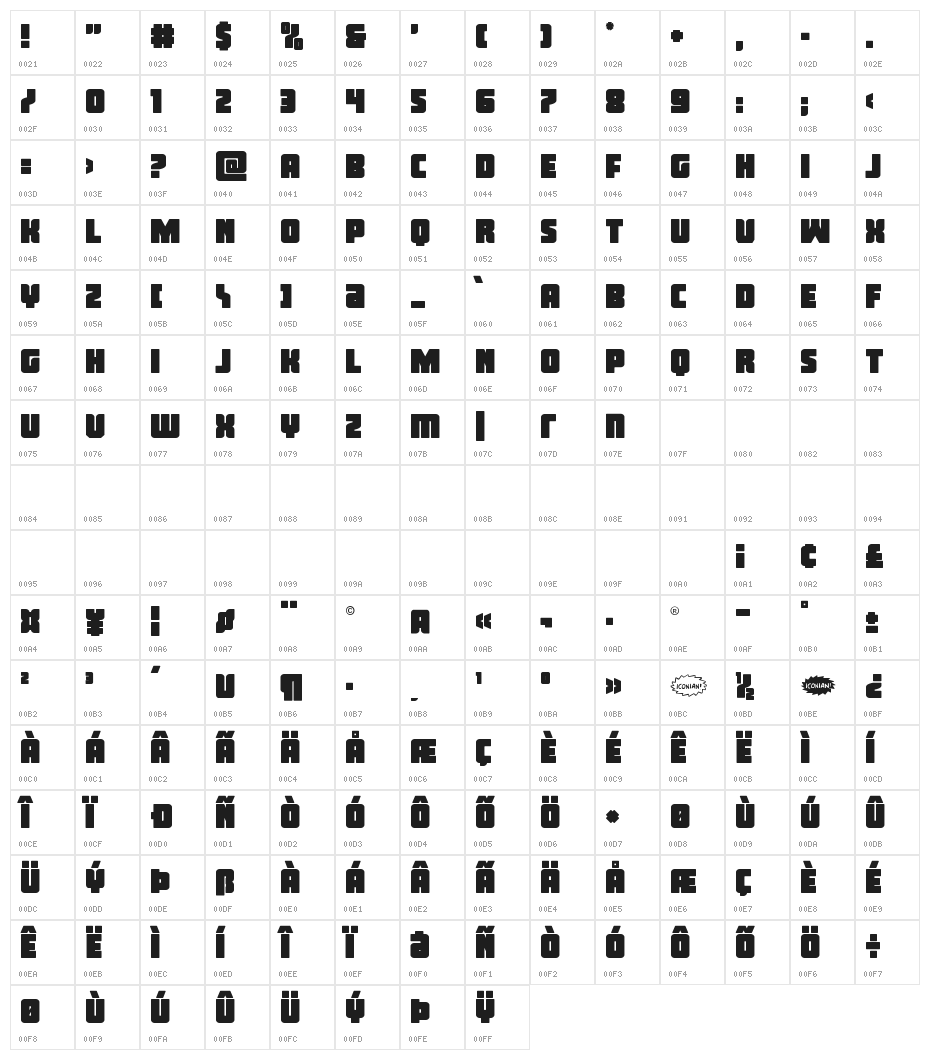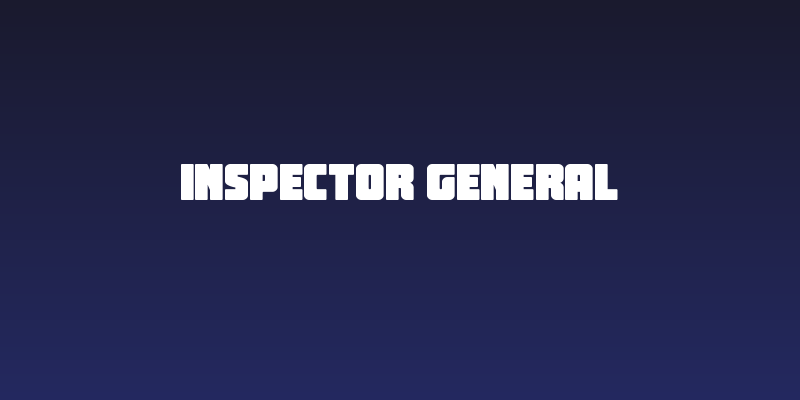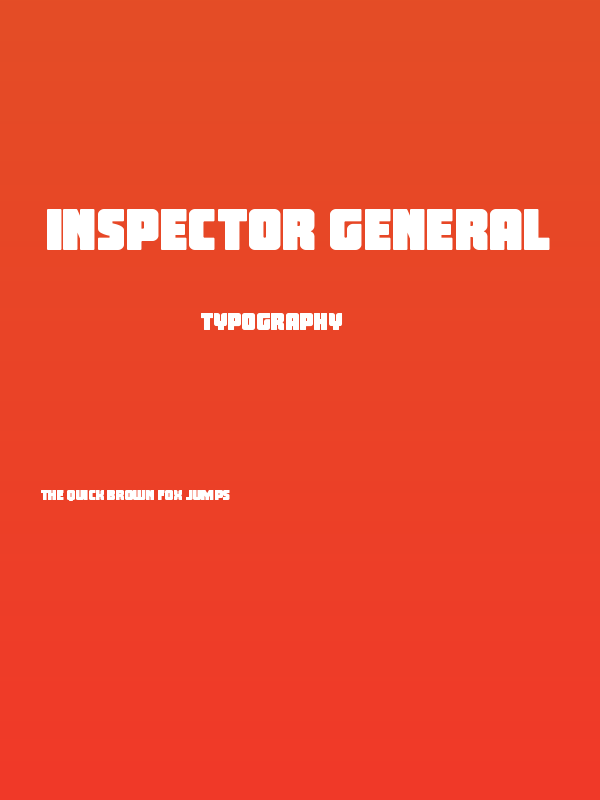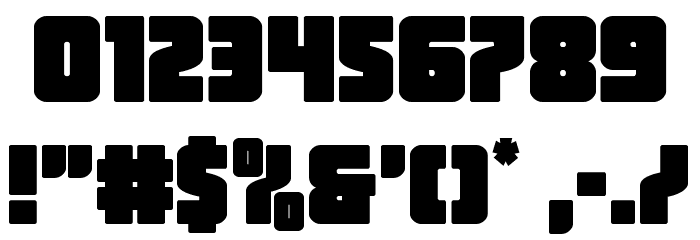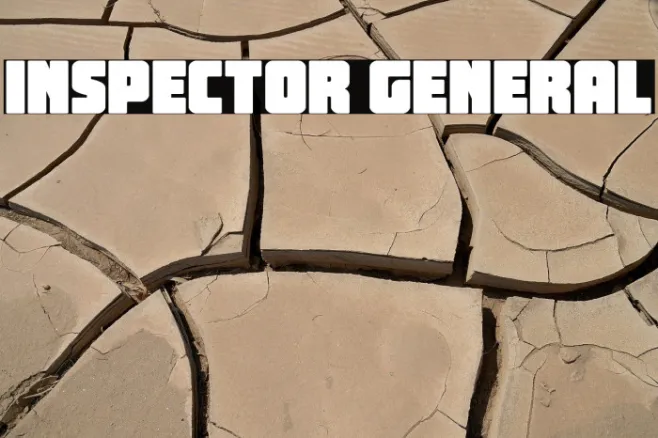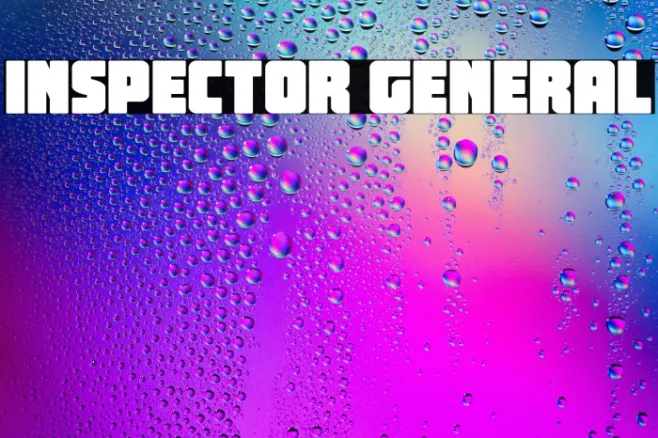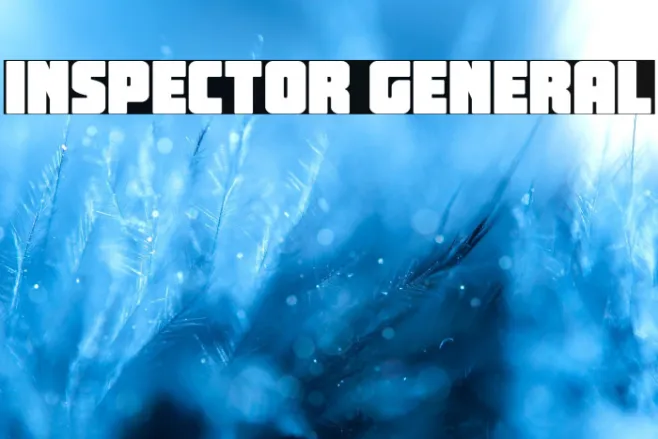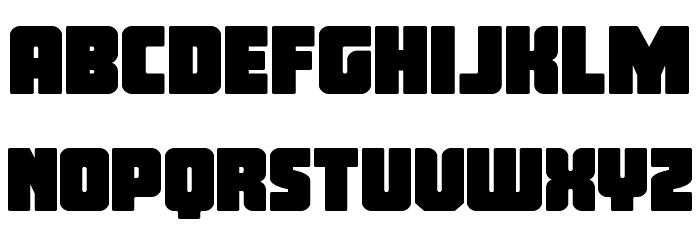
Inspector General Font
Inspector General Description
This bold and impactful font features a strong, geometric design with thick, block-like characters. The uppercase letters are uniform in height and width, creating a cohesive and powerful appearance. The numerals and special characters maintain the same boldness, ensuring consistency across all text elements. The font's distinct style is characterized by its heavy weight and solid structure, making it ideal for attention-grabbing headlines and designs that require a strong visual presence. Its modern and assertive look is well-suited for projects that aim to convey strength and stability.
| Proposed Projects | Ideal for posters, headlines, branding, and any design requiring a strong visual impact. |